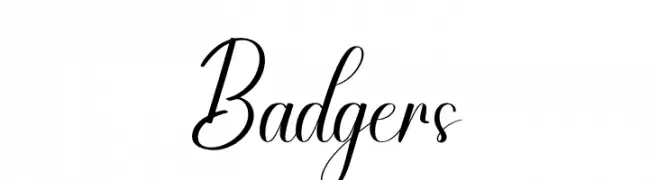
A distressed, grunge-style font with a bold, rugged appearance.
A bold, distressed font with a grunge, stamp-like appearance.
A bold, rugged, hand-drawn style font with a rebellious character.
A bold, blocky italic font with a dynamic, retro-inspired style.
A bold, geometric font with a strong, industrial aesthetic.
A decorative font inspired by the periodic table, featuring bold, grunge-style characters.
A whimsical, decorative font with intricate, vine-like embellishments.
A diverse set of bear icons and pictograms in multiple styles.
A bold, distressed font with a vintage, textured appearance.
A bold, vintage serif font with intricate line details and a classic appeal.
A bold, vintage-style font with striped patterns and a decorative flair.
A bold, gothic Blackletter font with intricate, angular designs.
A playful, bold font with wavy, irregular strokes and a whimsical style.
A bold, handwritten-style font with a playful and dynamic appearance.
An elegant, whimsical font with intricate swirls and loops.
A whimsical and elegant script font with decorative swirls and bold strokes.
A bold, dynamic display font with angular strokes and a comic-like style.
A bold, dynamic font with thick strokes and a slightly slanted style.
A bold, left-slanted font with a dynamic and robust style.
A bold, condensed, and italicized font with a dynamic and modern style.
A bold, italic font with angular cuts and a modern, dynamic style.
A bold, geometric font with a futuristic and industrial style.
A bold, geometric font with a strong, block-like appearance.
A bold, italicized font with a modern and dynamic style.
A bold, condensed font with a modern, geometric style.
A bold, italic font with a dynamic and modern style.
A bold, geometric font with expanded width and strong visual impact.
A bold, geometric font with a modern and impactful design.
A bold, 3D italic font with outlined characters and a modern, geometric style.
A bold, 3D geometric font with strong outlines and a modern style.
A bold, expanded italic font with a modern, dynamic style.
A bold, italicized font with a futuristic and dynamic style.